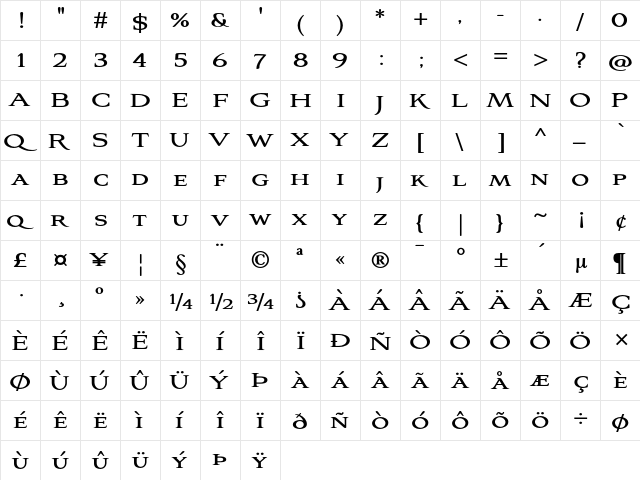
Aviano Bold Bold
| Foundry | Jeremy Dooley |
Design Context for Aviano Bold Typeface
Aviano Bold offers clean, dependable letterforms without strong stylistic allegiance, making it a practical choice for designers who need flexibility. The heavy weight commands attention and anchors typographic hierarchies.
Pro Tip: Use Aviano Bold in both headline and body roles to test its range before committing to a single application.